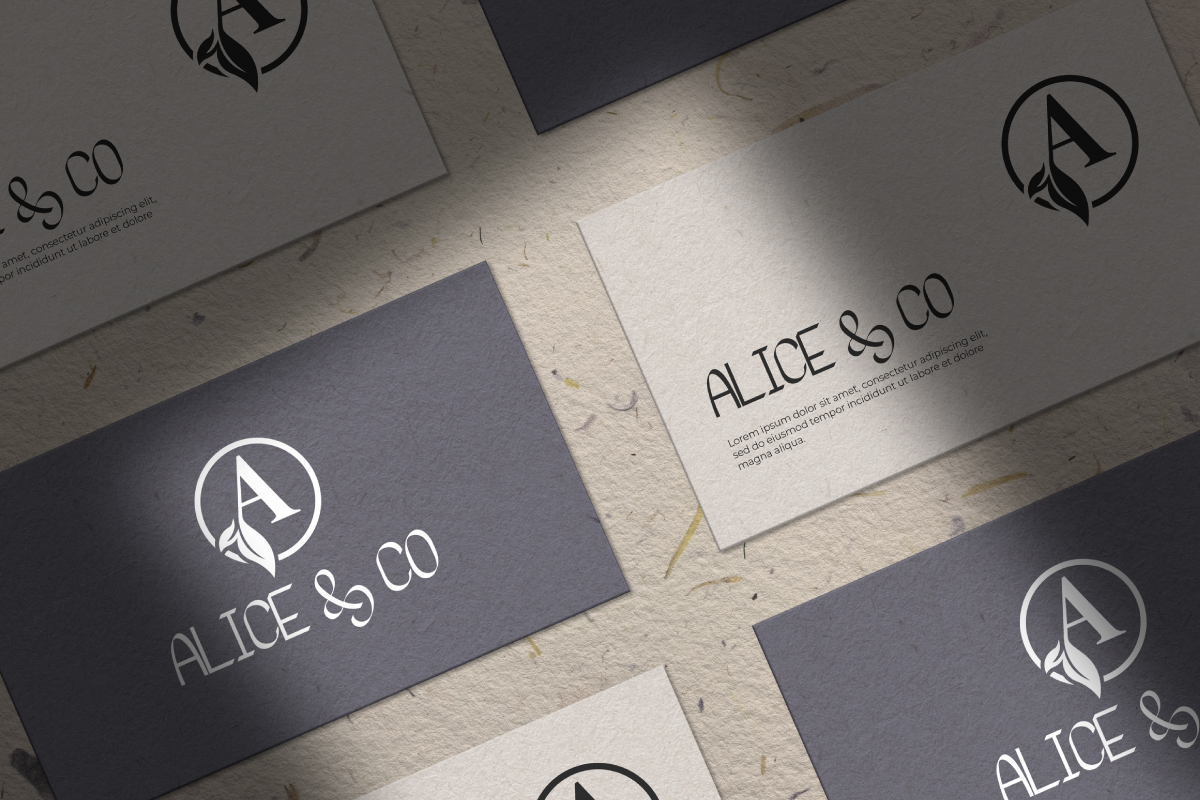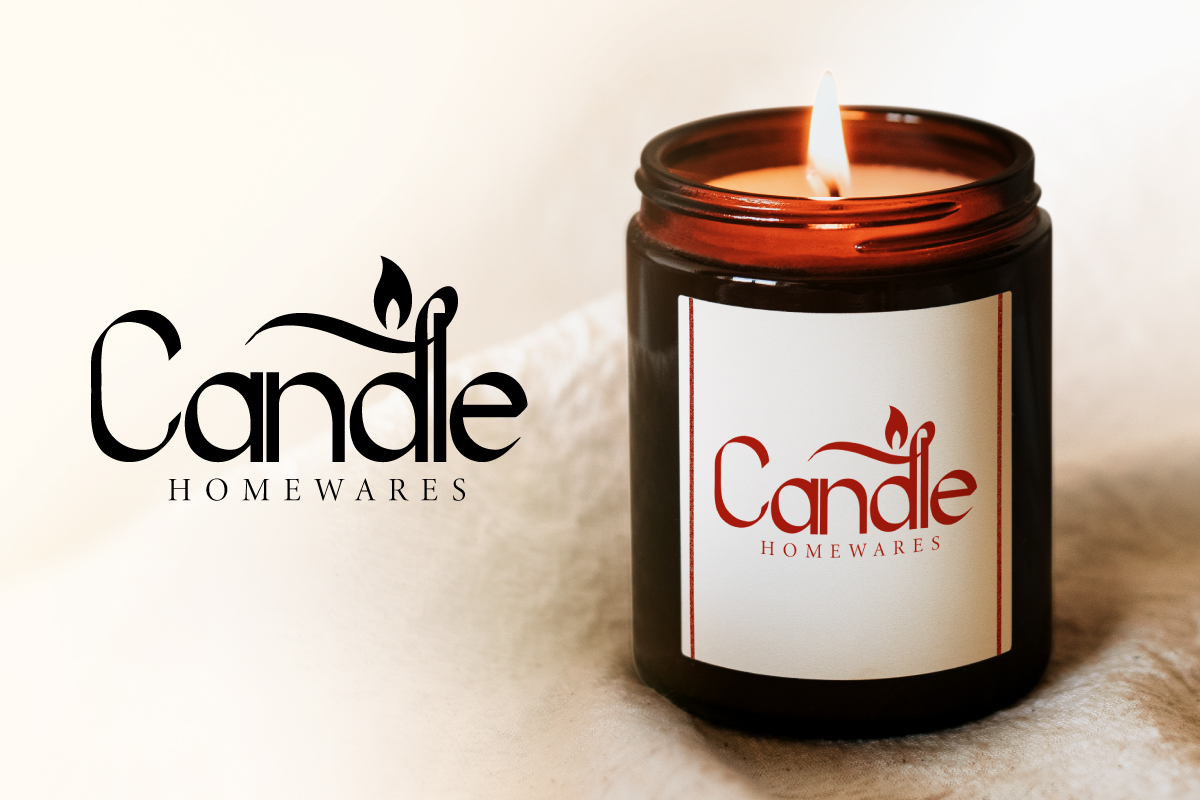
Misty Wonders Font
Misty Wonders Script Font
This font includes full set of Characters, Numerals and Punctuation. Also it contains ligatures to make it flowless that add more aesthetic fonts to perfect your extraordinary project. This font also contain some special decorative character alternatives to make it more unique and useful. The font will be great for musical, school, teacher, student, kindergarten, drama, movie etc
VinType